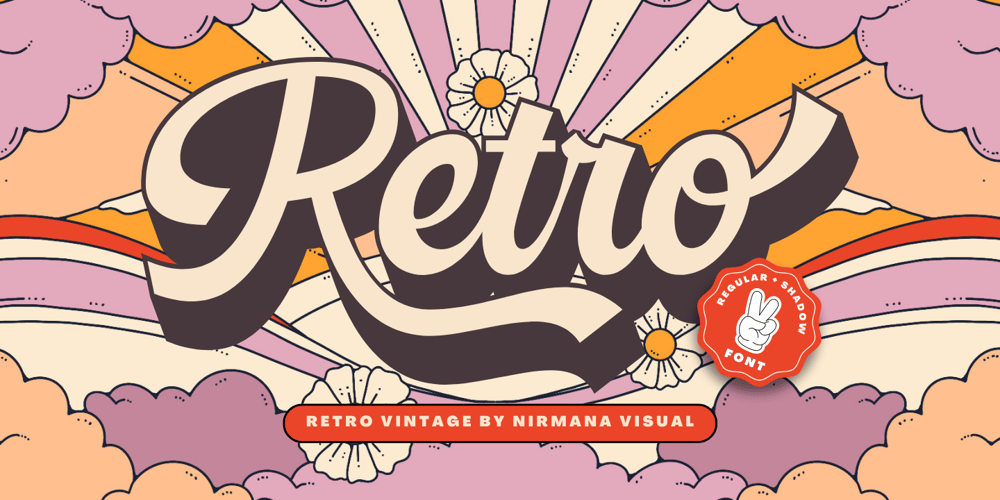
Retro Vintage Font Family was designed by Sigit Dwipa and published by Nirmana Visual. Retro Vintage contains 2 styles and family package options. Retro Vintage , Inspired by 70s Design Era.Retro Vintage offers beautiful typographic harmony for a diversity of design projects, including logos & branding, social media posts, advertisements & product designs.Includes a shadow/extrude version.